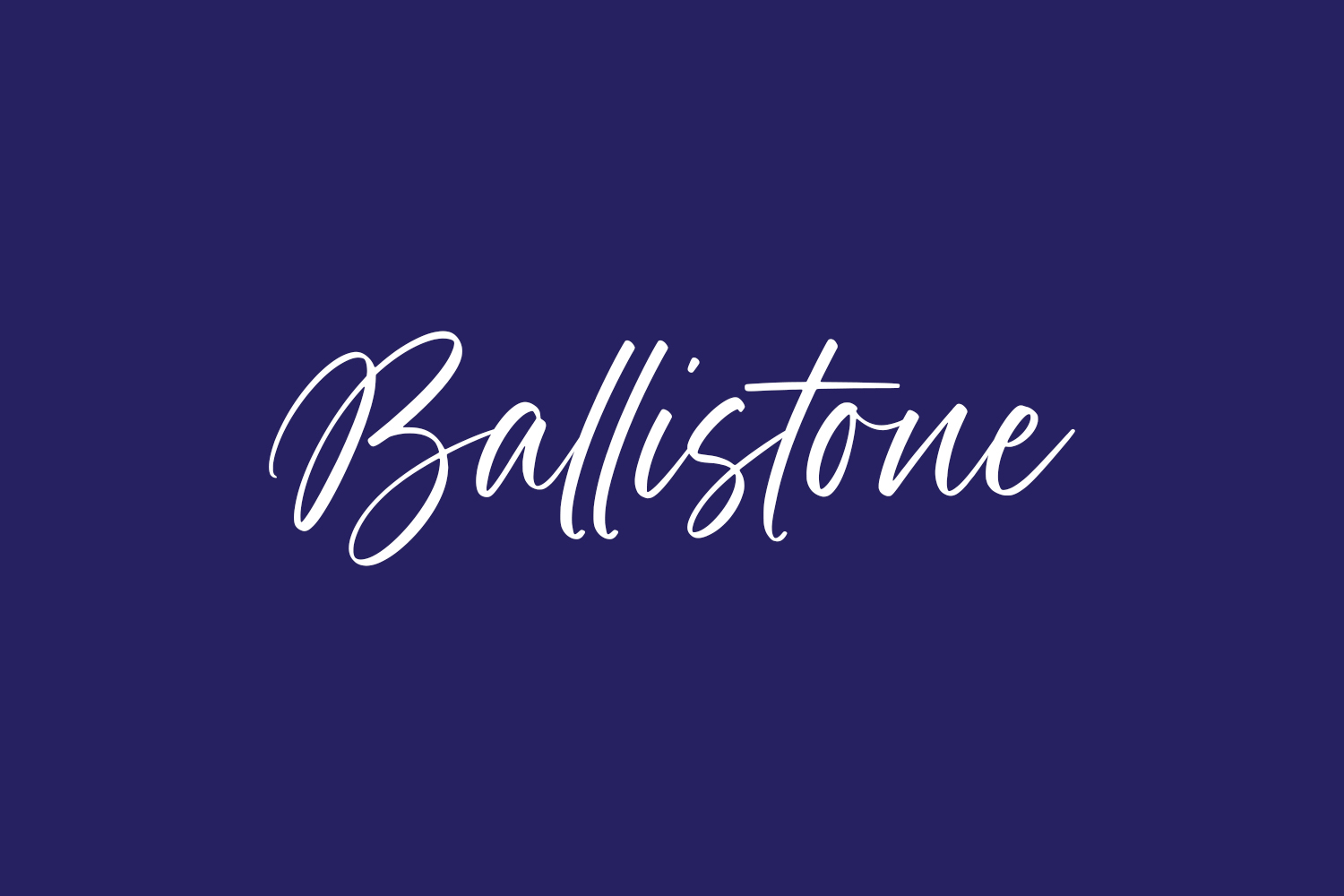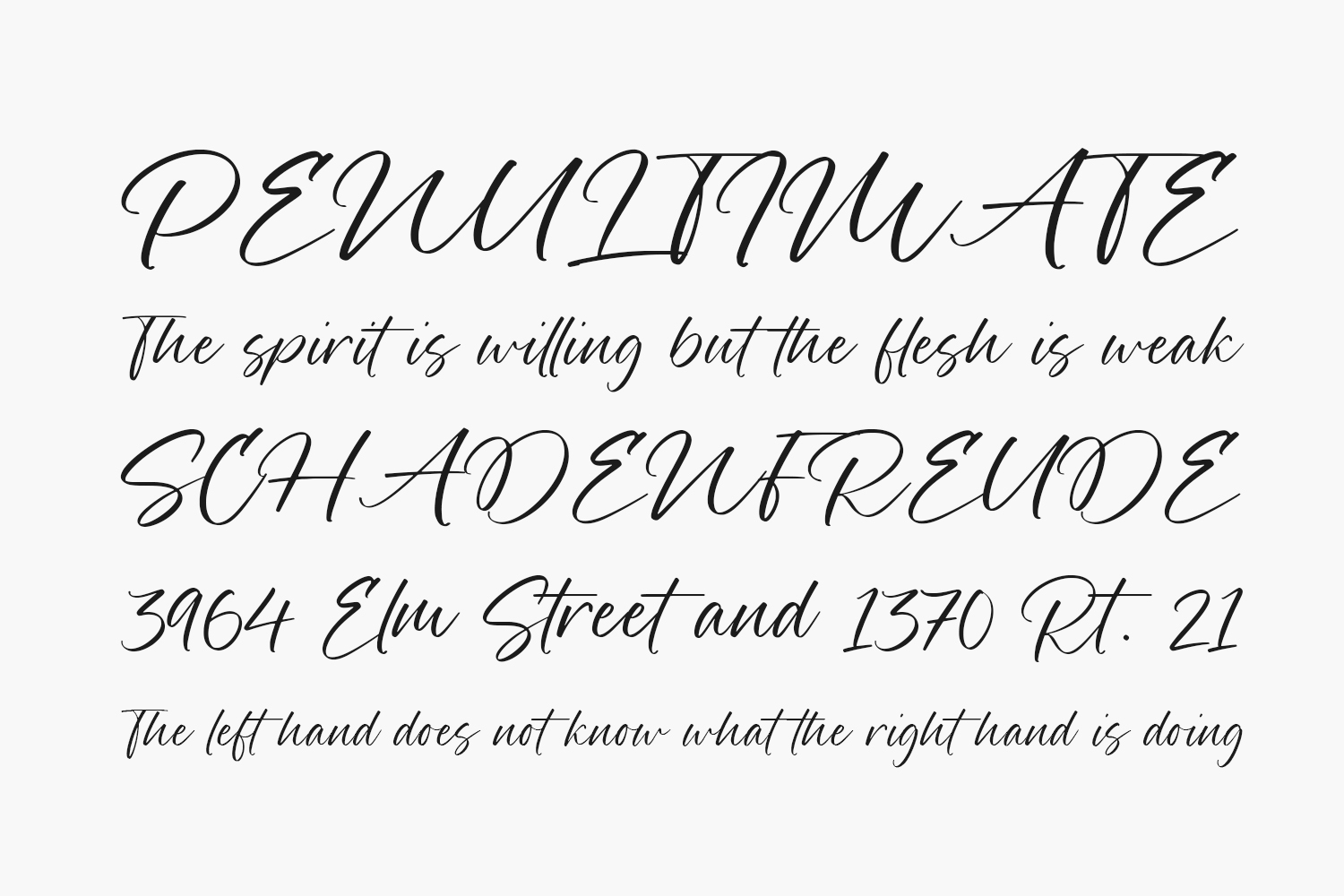
Discover Ballistone Free Font: a magnificent handwritten font meticulously crafted with your needs in mind! Ideal for product packaging, branding initiatives, magazines, social media content, weddings, or any occasion where words need to shine above the backdrop. Download the font for free if you need it for personal use or purchase the full version for commercial use.
Designed by Timur Type